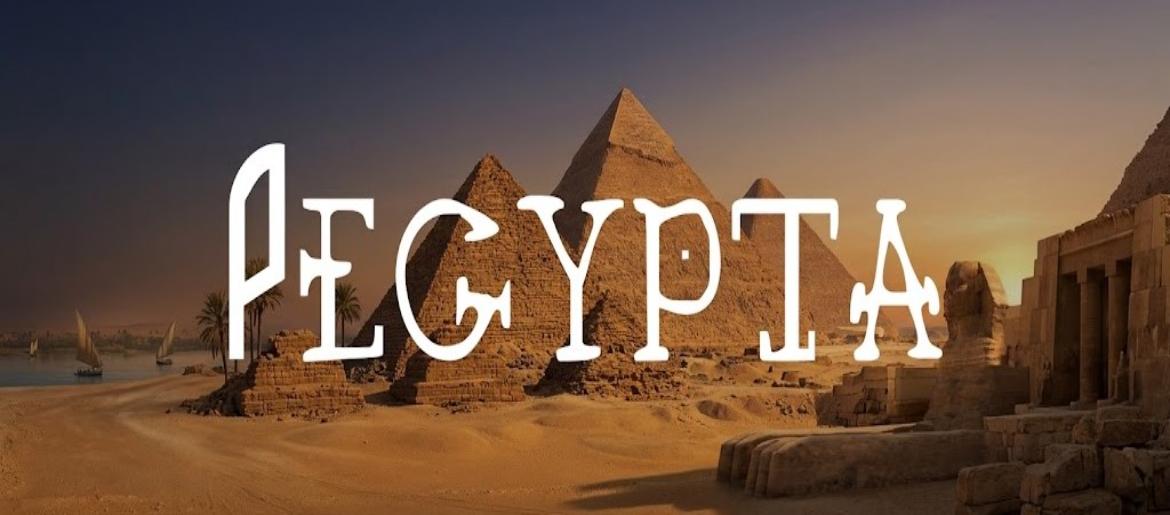
Pegypta Font
Pegypta by CybaPee Creations is a richly decorative Egyptian display typeface that carries the weight of antiquity in every glyph. Drawing on the visual vocabulary of ancient Latin letterforms, it delivers a distinctive vintage character that feels simultaneously archaeological and cinematic — as if carved from stone and then set in type. With a complete set of letters, numbers, and symbols, it brings a genuine depth of cultural texture to book covers, movie titles, theatrical posters, advertising headlines, and any design project that benefits from the mystique of the ancient world. Free for personal use.